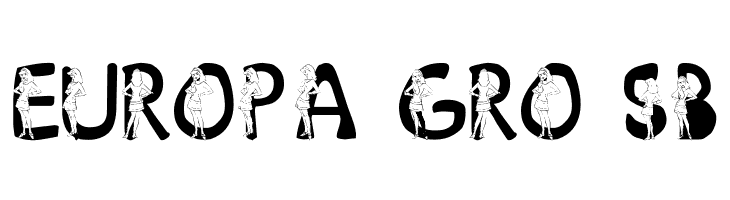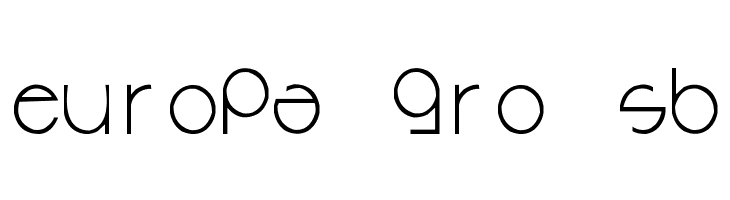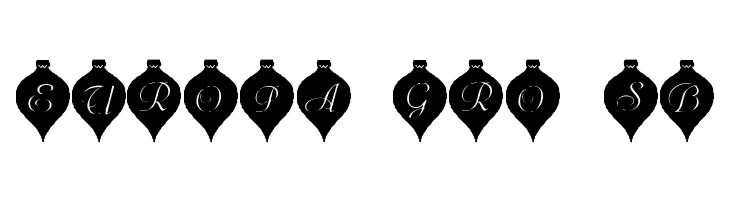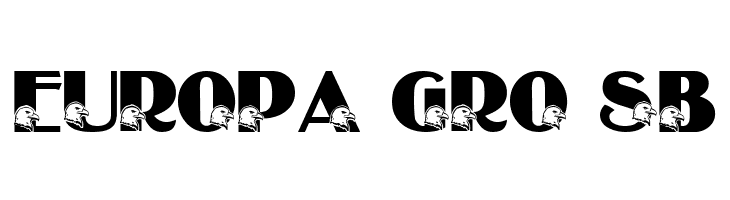
• LMS Dance Shoes
A bold, cursive font with decorative dance shoe elements.
• LMS Daphne
• LMS DaQ's Circle of Love
A modern, geometric font with circular motifs and dynamic contrast.
• LMS Darren's Delight
A bold, artistic font with palette embellishments for a creative touch.
• LMS Darren's Diversion
A playful font with characters inside painter's palettes, ideal for creative projects.
• LMS David's Ducks
A decorative serif font with playful duck illustrations in each letter.
• LMS Deck The Font
An elegant, ornament-themed decorative font with high contrast script characters.
• LMS Eagle Eyed
A bold, decorative font featuring an eagle motif integrated into each letter.
• LMS Easter Chick
A whimsical font with letters nestled in Easter chick designs, perfect for festive projects.
• LMS Elephant Tattoo
A decorative font with characters integrated into elephant motifs.